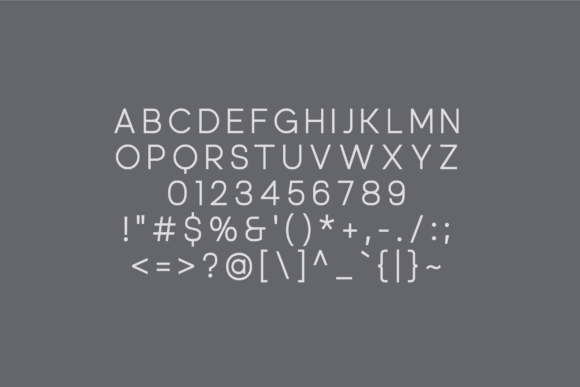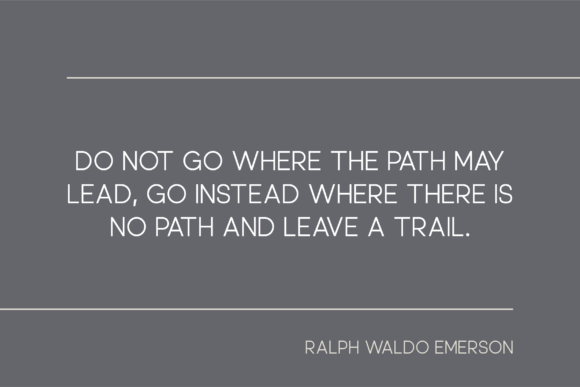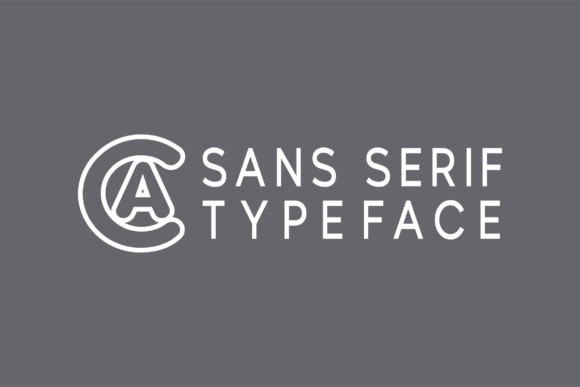
Introduction to Shadowfox Font Font
Fonts play a crucial role in design, and the Shadowfox Font font is a typeface that brings both character and versatility to any project. Whether you’re working on a branding project, a website, or a print design, the Shadowfox Font font offers a unique style that can elevate your work.
Unveiling Shadowfox, a sophisticated, contemporary sans serif font that boasts a unique blend of classic and modern aesthetics.
A versatile font that encapsulates lettering from A to Z, figures from 0-9, and a comprehensive selection of punctuation and symbols Shadowfox is designed to seamlessly fit into a myriad of applications – from creating striking logos and elegant wedding invitations, to crafting compelling quotes and advertisements, all the way to designing beautiful print materials and enlivening magazine layouts.
Key Features of Shadowfox Font Font
Why Choose Shadowfox Font Font?
The Shadowfox Font font is more than just a typeface – it’s a design tool that helps you communicate your message with style and clarity. Its unique character set and versatile design make it suitable for a wide range of applications, from elegant invitations to bold headlines.
With its carefully crafted letterforms and balanced proportions, the Shadowfox Font font ensures readability and visual appeal across all mediums.
What makes Shadowfox Font font special?
The Shadowfox Font font stands out with its unique design, exceptional readability, and versatility across various design applications.